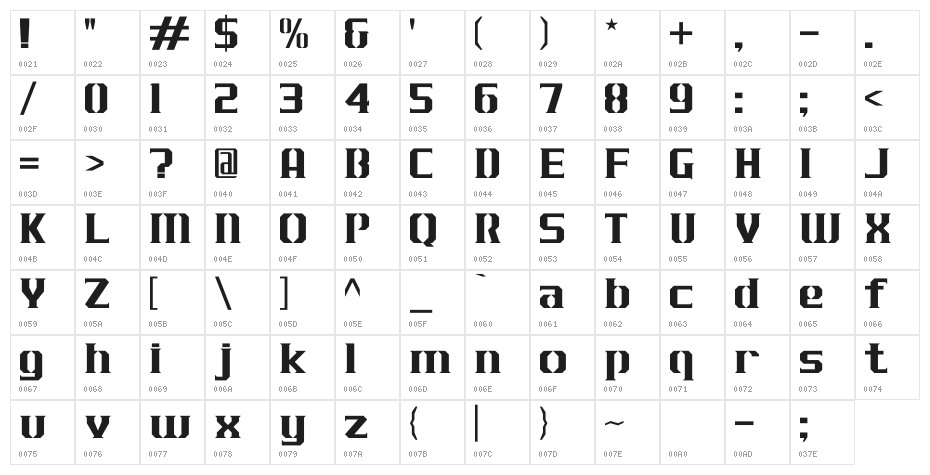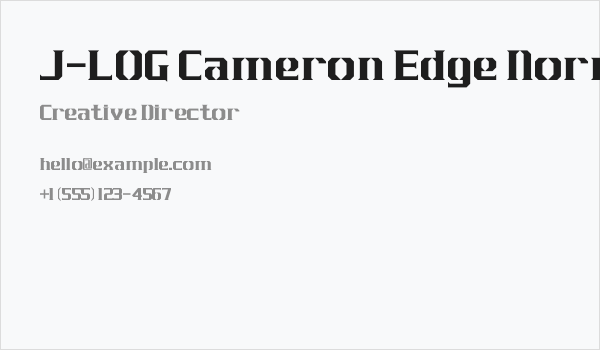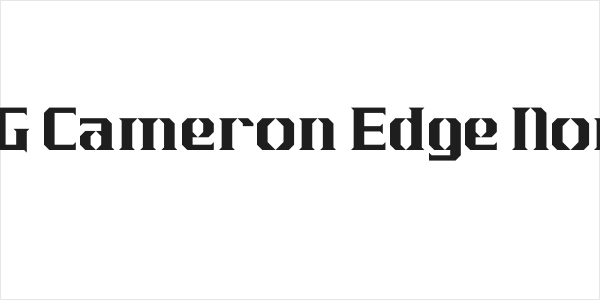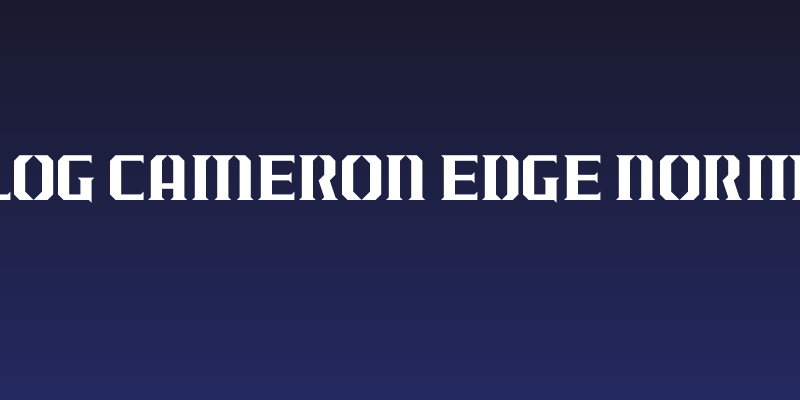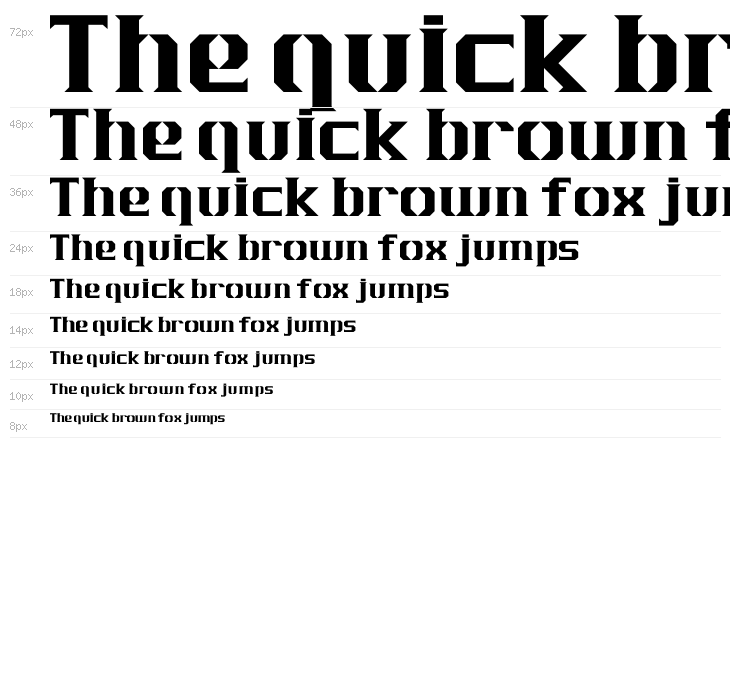
J-LOG Cameron Edge Normal Font
J-LOG Cameron Edge Normal Description
This font features a bold and striking design with a modern, angular aesthetic. The characters are constructed with sharp edges and geometric shapes, giving it a futuristic and industrial feel. The uppercase and lowercase letters maintain a consistent style, with a uniform height and width that enhances readability. The numbers and special characters are designed to match the overall theme, providing a cohesive look across all glyphs. The font's unique style makes it stand out, making it suitable for projects that require a strong visual impact.
| Proposed Projects | Ideal for branding, posters, video game graphics, and any project needing a futuristic touch. |